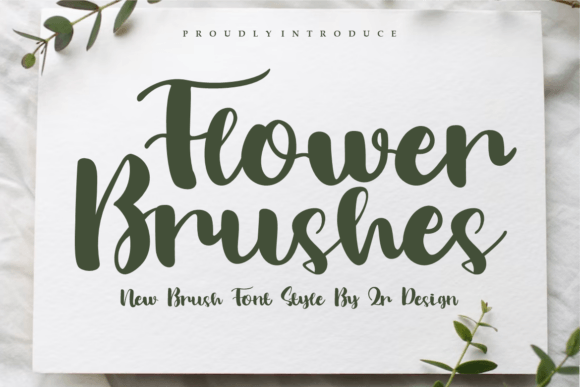
Flower Brushes for Authentic Small Business Branding
Last month I sat down at my kitchen table with a stack of blank kraft labels, a printer, and a fresh pot of coffee. My small candle business had been using the same generic script font for three years, and I knew it was time for a change. The labels felt flat. The logo lacked personality. When customers posted photos of their orders on social media, the typography blended into the background. That is the moment I opened Flower Brushes, a bold and authentic display font that instantly gave my brand the warmth and confidence it had been missing. If you are a small business owner searching for a typeface that makes your products feel polished without losing your handmade soul, this review is for you.
How Flower Brushes Transformed My Product Labels and Packaging
I tested Flower Brushes first on my candle jar labels. Flower Brushes Font is a bold and authentic display font, and from the first letter I knew it was the right fit. The thick strokes and slightly textured edges gave my simple candle names—"Lavender & Sage," "Vanilla Bean," "Cedar Smoke"—a handcrafted presence that felt honest and premium. The font sits comfortably at large sizes, which makes it ideal for product titles and hero text on packaging. I printed a test label, stuck it on a glass jar, and held it up to the light. The transformation was immediate. Where my old font looked timid, Flower Brushes looked intentional. For any small brand working with product labels, this Display typeface delivers the kind of visual weight that catches a customer's eye on a crowded shelf.
Using Flower Brushes for Logo Design and Storefront Identity
A logo needs to work in many places: your website header, your shipping box, your Instagram profile, and your storefront sign. I experimented with Flower Brushes as the primary typeface for a mock logo for a friend's small-batch bakery. The font's bold character held up beautifully at every size. On a business card, the name of the bakery sat large and confident. On a storefront mockup, the letters read clearly from a distance. Because Flower Brushes Font is a bold and authentic display font, it communicates personality without needing extra decoration. If you run a boutique, a café, a skincare line, or a coaching brand, this typeface can anchor your visual identity with one strong word or short phrase. Pair it with a subtle icon or let it stand alone—either way, your logo will feel complete.
Flower Brushes for Thank-You Cards, Tags, and Small Printed Details
One of the easiest ways to elevate a customer's unboxing experience is through handwritten-looking details. I printed a set of thank-you cards using Flower Brushes for the headline and a simple sans serif for the body text. The contrast worked beautifully. The bold, brush-style headline felt personal, while the clean supporting text kept the card readable. I also created garment tags for a friend who sells handmade linen aprons. Flower Brushes printed crisp on matte paper, and the slight irregularity in the letterforms gave each tag a bespoke feel. For small businesses selling fashion, home goods, or artisanal food, these small brand touches matter. Customers notice when you invest in the details. Using Flower Brushes on tags, stickers, and inserts signals that your brand is thoughtful and consistent.
Pairing Flower Brushes with Clean Fonts for Menus and Signage
A display font like Flower Brushes shines brightest when it is supported by a clean, neutral counterpart. I tested it for a café menu. I placed the café name and speciality drinks in Flower Brushes at the top of the board, then used a simple sans serif for descriptions and prices. The effect was both welcoming and organized. For café owners, restaurant owners, or any business running a chalkboard or printed menu, this combination delivers readability without sacrificing personality. Flower Brushes works best as a headline or short-phrase font. It is not designed for long paragraphs. But when used sparingly—on a menu header, a flyer title, or a shop banner—it draws attention exactly where you want it. Pair it with a clean serif or a modern sans serif, and your typography will feel balanced and professional.
Why Flower Brushes Works for Fashion, Beauty, and Handmade Brands
The fashion and beauty space is crowded. Standing out takes more than a good product—it takes visual consistency. Flower Brushes brings a handcrafted, expressive quality that feels especially right for indie beauty lines, small clothing brands, and handmade product creators. I tested it on a mockup for a natural skincare label. The word "GLOW" in Flower Brushes sat above a clean minimalist jar. The font added texture and warmth without feeling rustic or rough. It managed to feel both bold and elegant. For product labels, t-shirt prints, or social media graphics, Flower Brushes Font offers a distinctive voice. It is a Display font that understands the balance between personality and professionalism. If your brand sells candles, soaps, essential oils, handmade apparel, or artisanal goods, this typeface belongs in your design toolkit.
Readability Tips for Using Flower Brushes on Packaging and Digital Graphics
Any business owner using Flower Brushes should understand where it reads best. Because it is a bold display font, it performs wonderfully at larger sizes. On product packaging, I recommend using it for the product name, brand name, or key selling phrase. Keep supporting details—ingredients, care instructions, website URLs—in a simpler font. On social media graphics, I tested Flower Brushes for Instagram story titles and pinned posts. It stood out beautifully against solid color backgrounds and soft gradients. On thumbnails, the bold lettering remained legible even at small sizes. The only caution is with dense or patterned backgrounds. Give your text room to breathe. A clean background ensures the letterforms stay sharp. For digital ads, website banners, and online shop headers, Flower Brushes creates an immediate focal point that invites the viewer to stop scrolling.
What to Check Before Using Flower Brushes on Commercial Products
Before you commit to any font for your business packaging, merchandise, or digital products, take a few minutes to review the included files and licensing. Flower Brushes is a commercial font designed for branding projects. I recommend checking whether your download includes multiple weights, alternates, ligatures, and multilingual support. These extras give you flexibility when designing across different materials. If you plan to use the font on products for sale—labels, t-shirts, packaging, or digital templates—confirm that the license covers commercial use. This step protects your business and ensures you can use Flower Brushes with confidence. A font is an investment in your brand identity, and knowing the terms upfront saves time and stress later. When you choose Flower Brushes, you are selecting a display font with a strong visual voice that can carry your brand across print and digital spaces.
From my kitchen table test to full packaging mockups, Flower Brushes proved itself as a font that small business owners can rely on. It is bold without being loud, handcrafted without being sloppy, and versatile enough to work across fashion, beauty, food, and lifestyle brands. If you are ready to give your brand a consistent, polished, and memorable look, this typeface deserves a place in your design process.